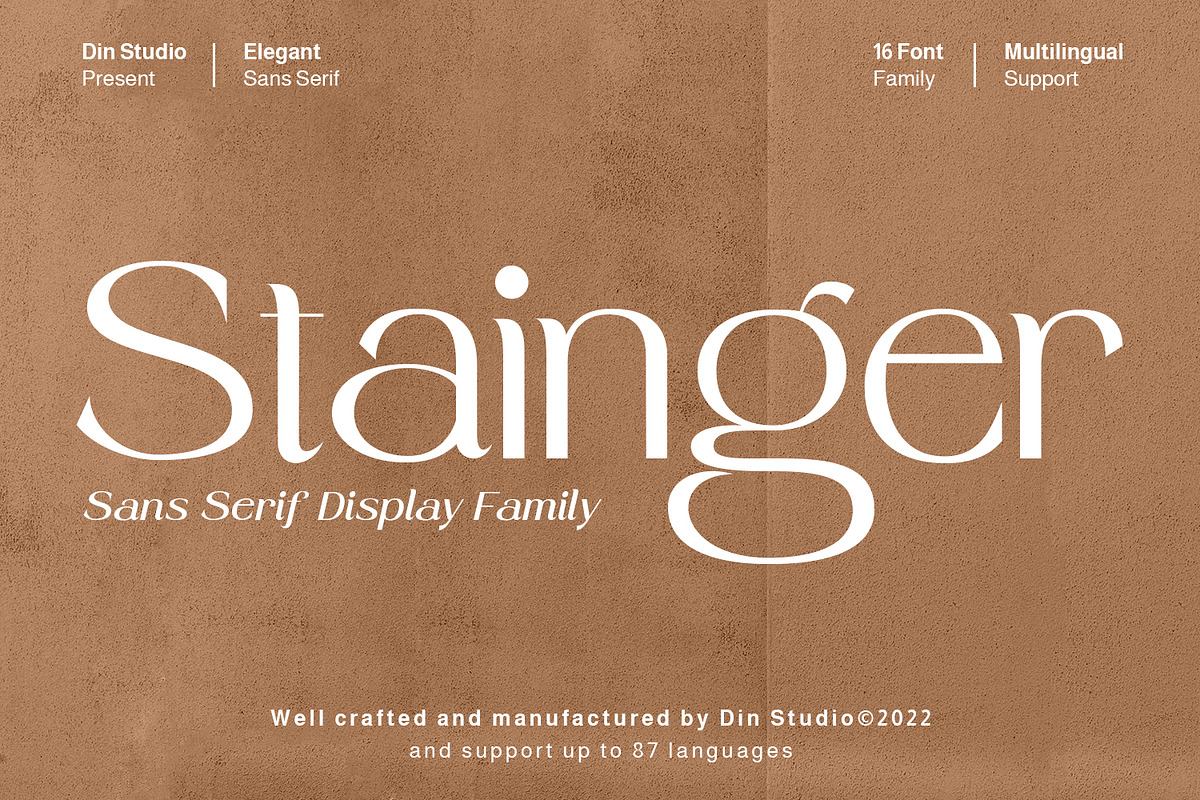
Stainger Font Free Download is a bold, modern display typeface designed to make a striking impression. With its sharp lines, edgy curves, and stylish flair, this font is perfect for logos, posters, headlines, apparel, and branding projects that need a confident and contemporary look.
Its strong personality makes Stainger ideal for creatives who want to stand out. Whether you're working on a music cover, fashion campaign, or edgy streetwear label, this font brings power and presence to your typography.